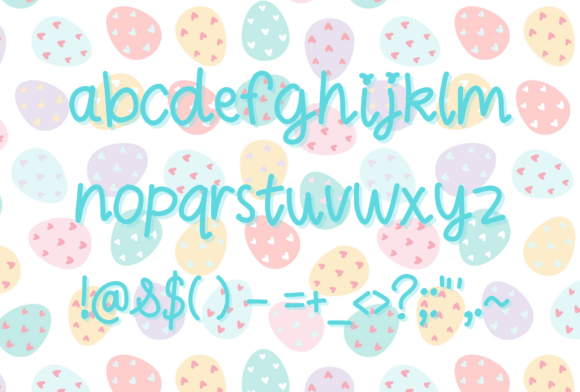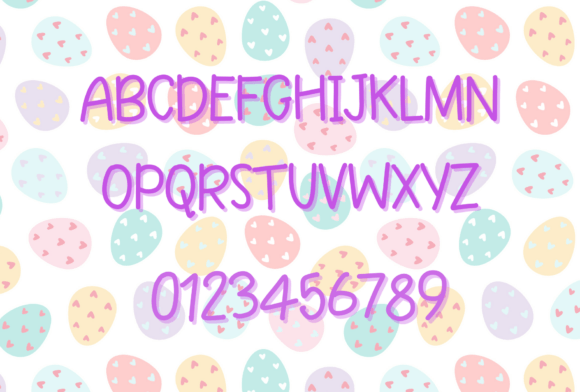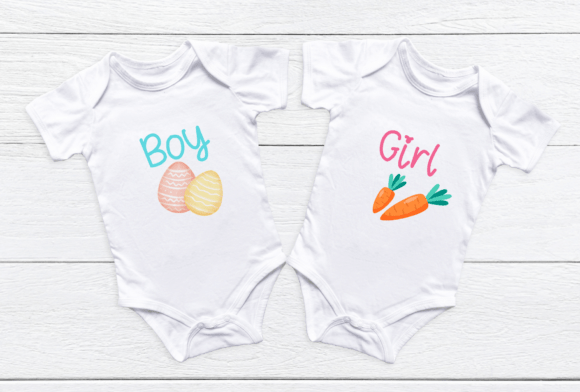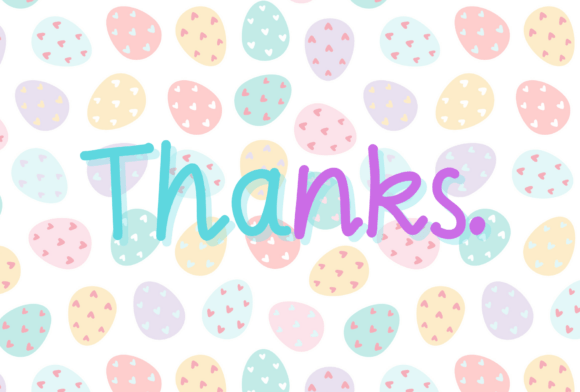
Introduction to Easter Days Font
Have you ever found yourself scribbling notes in a notebook, only to realize that your handwriting is more art than legible writing? That’s exactly how many of us feel when searching for the perfect digital handwriting font. And that’s where the Easter Days Font comes in – a beautiful, high-quality handwriting font that’s perfect for digital note-taking and various creative projects.
Whether you’re a designer, blogger, or simply someone who loves adding a personal touch to their work, the Easter Days Font is an invaluable design resource. With its transparent background, this font seamlessly integrates with any project, from Procreate to blog posts, and even logos and branding materials. Plus, it supports multiple languages, making it a valuable asset for designers working on diverse projects.
Easter Days Font
- Unique Easter-themed design, perfect for creative projects and holiday-themed graphics
- High-quality design with crisp lines and vibrant colors, suitable for print or digital applications
- Designed to be versatile, making it suitable for a variety of creative projects, from greeting cards to web design
Honest Review: Easter Days Font
I recently had the chance to work with the Easter Days Font for a creative project, and I must say it was a delight. This font is a great addition to any design resource, especially for those looking to create Easter-themed designs.
- What works well: ✨ The Easter Days Font comes with a transparent background, making it easy to incorporate into any design without worrying about background elements clashing. ✨ It’s also a high-quality font with clear and crisp characters.
The Easter Days Font is a versatile design resource that can be used in a variety of creative projects, including invitations, posters, presentations, reports, and more. It’s also perfect for creating a transparent background or overlay, making it a great resource for designers who want to add a touch of whimsy to their designs.